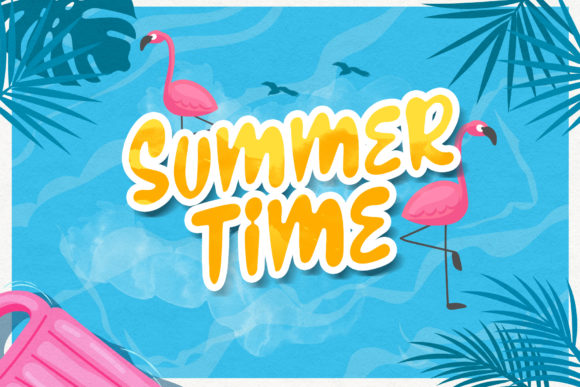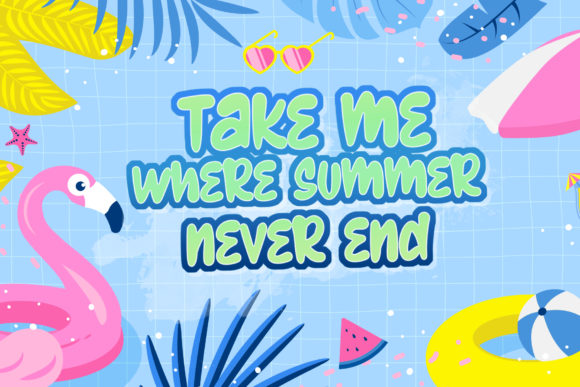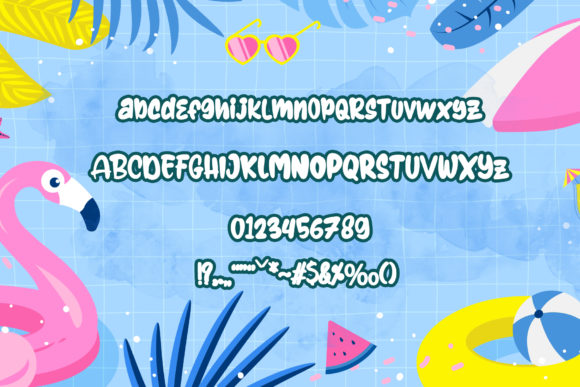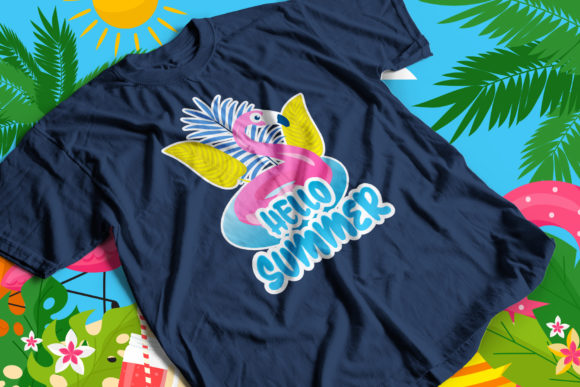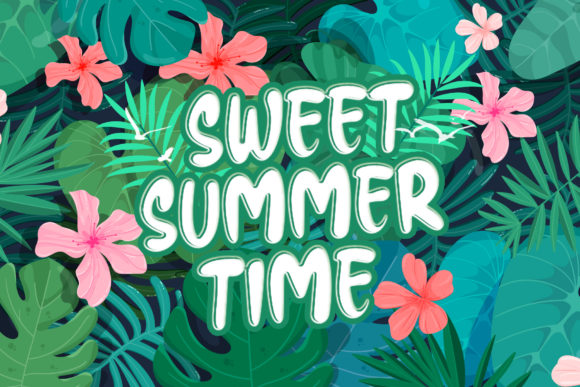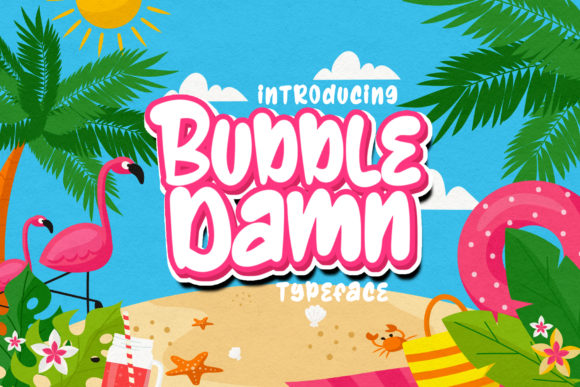
BubbleDamn Font: The Playful Display Font to Elevate Your Designs
Are you tired of using the same old fonts in your designs? Look no further than BubbleDamn, a bouncy and fun display font that’s sure to capture attention. With its playful style, BubbleDamn is perfect for creating beautiful stationary art, eye-catching social media posts, and so much more. In this article, we’ll dive into the world of BubbleDamn and explore its features, uses, and benefits for designers and crafters.
What is BubbleDamn Font?
BubbleDamn is a display font designed to add a touch of playfulness and whimsy to your designs. Its bouncy and fun style makes it perfect for headlines, titles, and short text passages. The font’s unique design features rounded edges and a carefree vibe, making it ideal for designs that require a youthful and energetic feel.
Features of BubbleDamn Font
- Playful style: BubbleDamn’s playful style is sure to capture attention and add a touch of fun to your designs.
- Bouncy and energetic: The font’s bouncy and energetic feel makes it perfect for designs that require a youthful and vibrant vibe.
- Rounded edges: The font’s rounded edges give it a soft and approachable feel, making it suitable for a wide range of designs.
- Easy to read: Despite its playful style, BubbleDamn is easy to read, making it perfect for short text passages and headlines.
Uses of BubbleDamn Font
BubbleDamn is a versatile font that can be used in a variety of designs, including:
- Stationary art: Use BubbleDamn to create beautiful and playful stationary art, such as greeting cards, invitations, and posters.
- Social media posts: Add a touch of fun and playfulness to your social media posts with BubbleDamn.
- Headlines and titles: Use BubbleDamn as a headline or title font to add a touch of whimsy and energy to your designs.
- Branding and packaging: BubbleDamn can be used in branding and packaging designs to add a playful and youthful touch.
Benefits of Using BubbleDamn Font
Using BubbleDamn font in your designs offers several benefits, including:
- Unique and eye-catching: BubbleDamn’s playful style makes it a unique and eye-catching font that’s sure to capture attention.
- Versatile: BubbleDamn can be used in a variety of designs, from stationary art to social media posts.
- Fun and playful: BubbleDamn adds a touch of fun and playfulness to your designs, making them more engaging and enjoyable.
Tips for Using BubbleDamn Font
Here are some tips for using BubbleDamn font in your designs:
- Use it sparingly: Use BubbleDamn sparingly to add a touch of playfulness to your designs. Overusing the font can make your designs look cluttered and overwhelming.
- Pair it with other fonts: Pair BubbleDamn with other fonts to create a unique and interesting contrast.
- Experiment with colors: Experiment with different colors to find the perfect combination that complements BubbleDamn.
BubbleDamn font is a playful and fun display font that’s perfect for designers and crafters looking to add a touch of whimsy and energy to their designs. With its bouncy and energetic style, BubbleDamn is sure to capture attention and make your designs stand out. Whether you’re creating stationary art, social media posts, or headlines and titles, BubbleDamn is a versatile font that’s easy to use and fun to work with. So why not give BubbleDamn a try and see how it can elevate your designs?